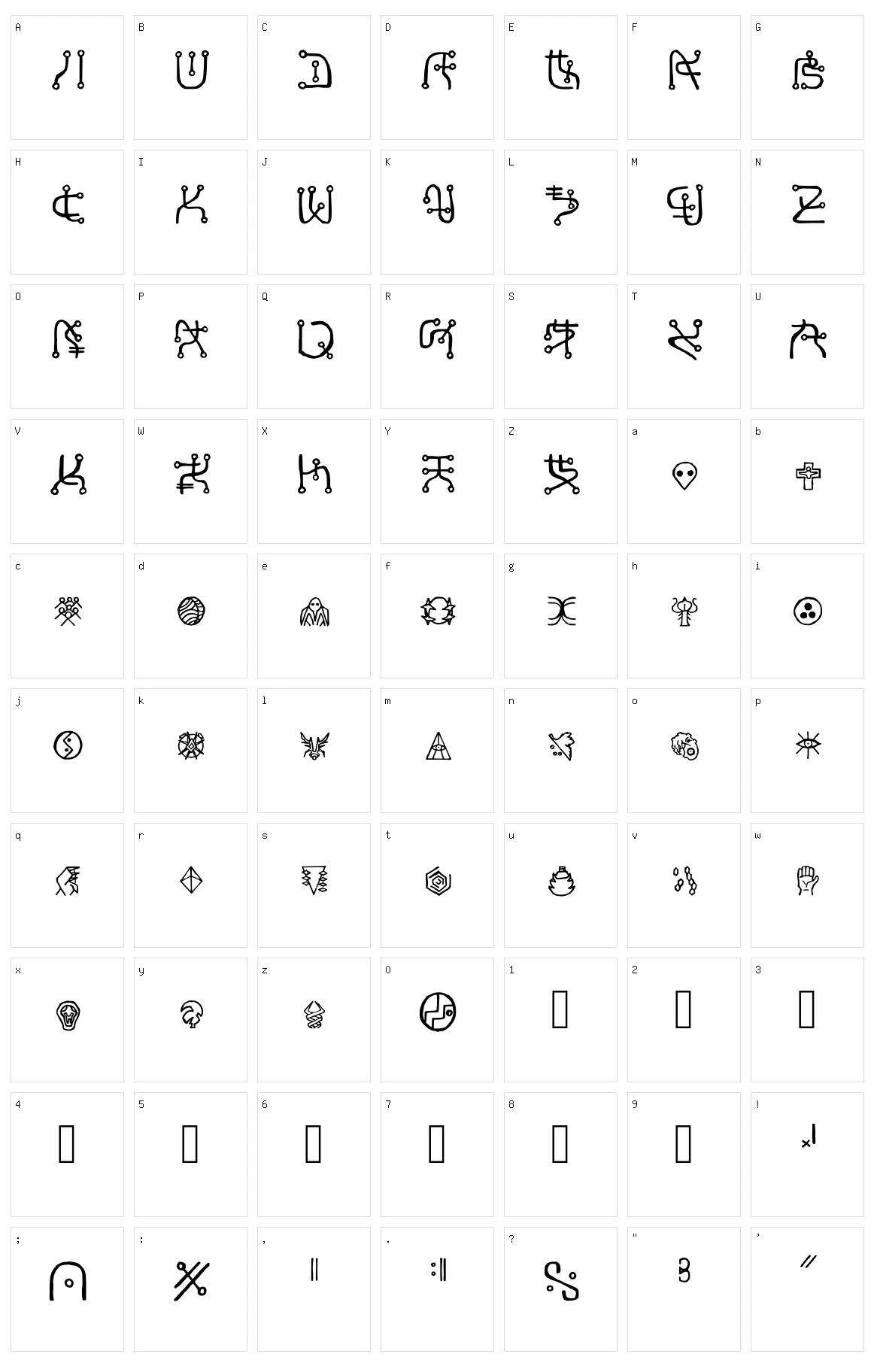
I designed this font taking inspiration on the Dead Sea Scrolls characters shown in the opening of Neon Genesis Evangelion (https://evangelion.fandom.com/wiki/Dead_Sea_Scrolls).
Hideaki Anno and his team took inspiration from the celestial and angelic alphabets that can easily found on the internet, supposedly a way to communicate with angels through magic or something like that, but I don't give a crap about that stuff. As a fan of that anime, I just wanted to pay tribute to it in a typing manner.
This font was made by hand in printed Calligrafr template (https://www.calligraphr.com), and there was no attempt to make a a polished version because I wanted a rather crude result due the handwritter diegetical origin of the characters.
Esta fuente fue hecha con una plantilla impresa de Calligrafr template (https://www.calligraphr.com), y no se hizo ningún intento por hacerla pulida porque querÃa un resultado crudo deliberado dado el origen manuscrito en el origen de los caracteres dentro de la serie.